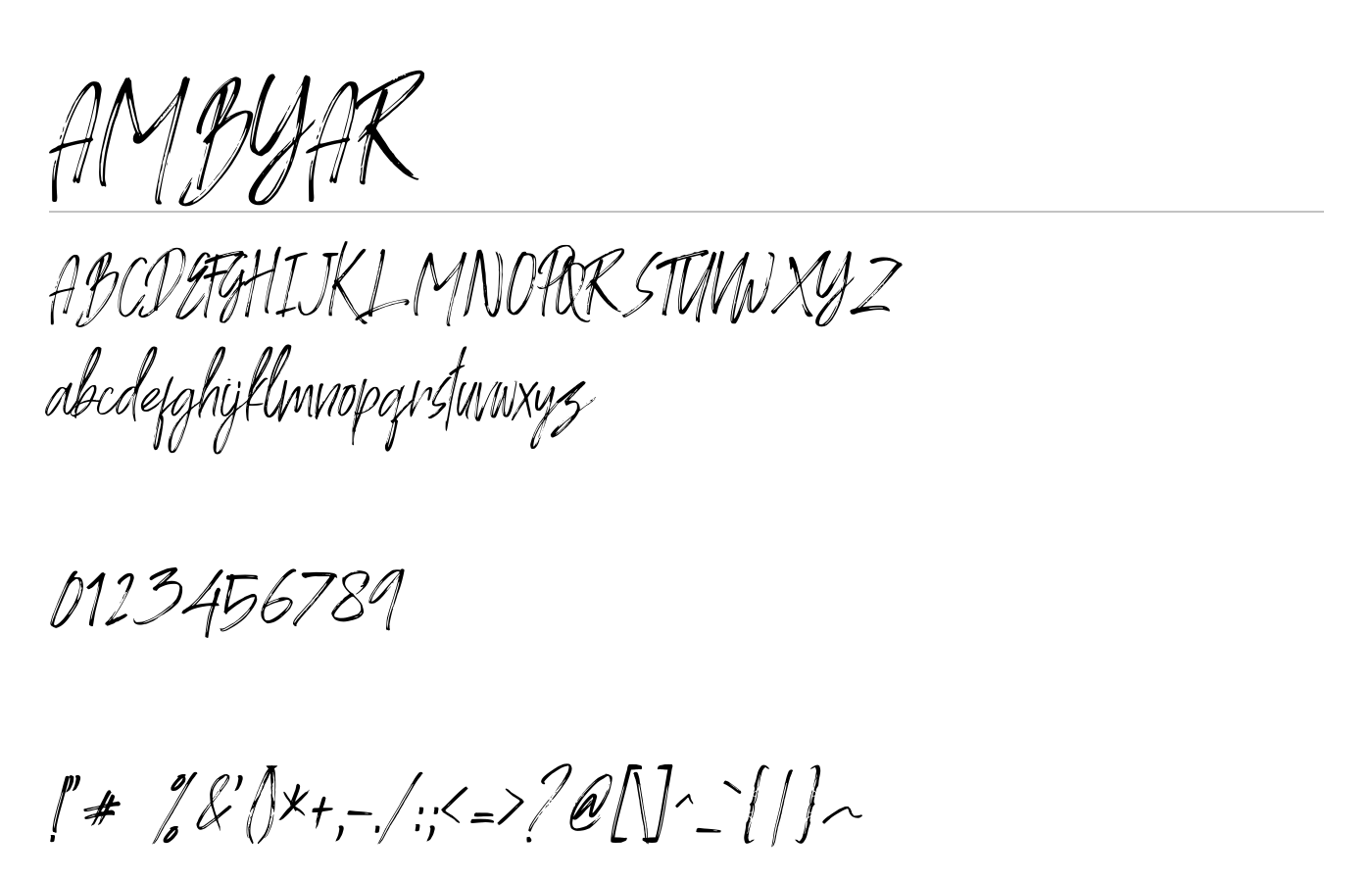
AMBYAR is a dynamic and expressive handwritten script font with a casual, energetic feel. Its tall, narrow letterforms feature sharp, irregular strokes that give it a raw and artistic vibe, making it perfect for creative projects, edgy branding, and stylish headlines that need a personal, lively touch. This font works well in designs that want to convey spontaneity and personality while maintaining a modern and distinctive look.
AMBYAR Font
About AMBYAR Font
| Font family | AMBYAR Font |
| Designer | Sarwo Edhi Prayitno |